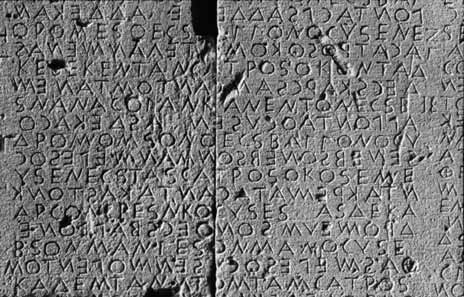
Early Greek capitals carved in stone (c.600 B.C.E.). The inscription is also an example of boustrophedon writing (as the ox plows) in which lines alternated first in one direction and then in the other.